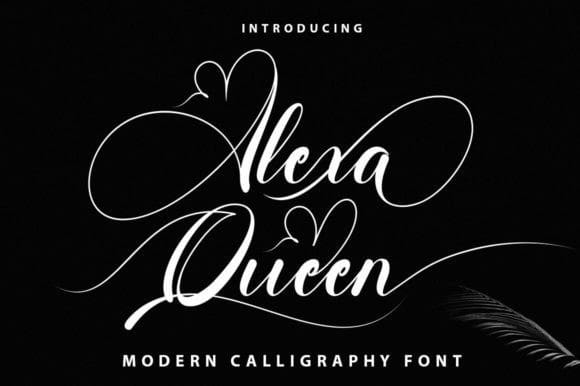
Alexa Queen Font
Alexa Queen Font by NH Studio 29,822 downloads
Alexa Queen Font
Alexa Queen Font is a calligraphy font that comes with exquisite changing characters, a kind of classic decorative copper script with a modern touch, designed with high details to bring out the elegance of the style. Alexa Queen Script Font is attractive because the typeface is smooth, clean, feminine, sensual, glamorous, simple, and very easy to read, because of the many luxurious letter connections. The classic style is very suitable to be applied in various formal forms such as invitations, labels, restaurant menus, logos, fashion, makeup, stationery, novels, magazines, books, greeting/wedding cards, packaging, labels, or all kinds of advertising purposes. .